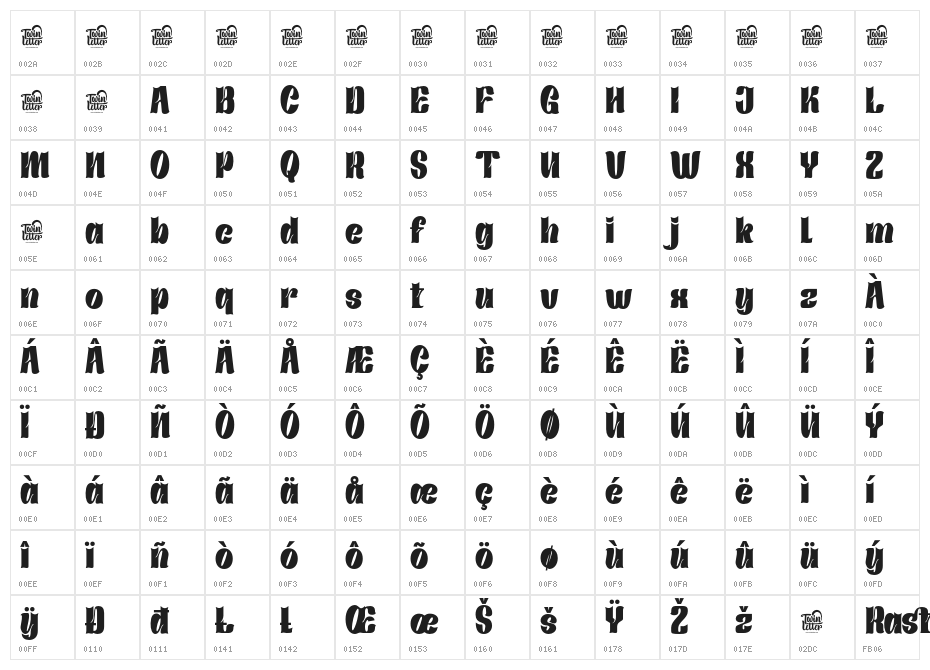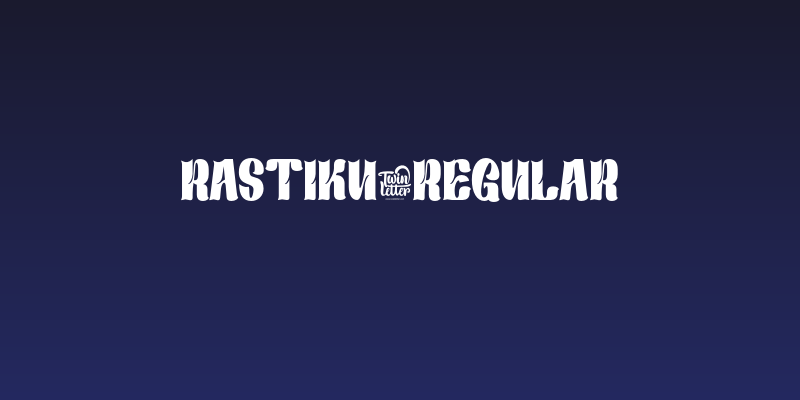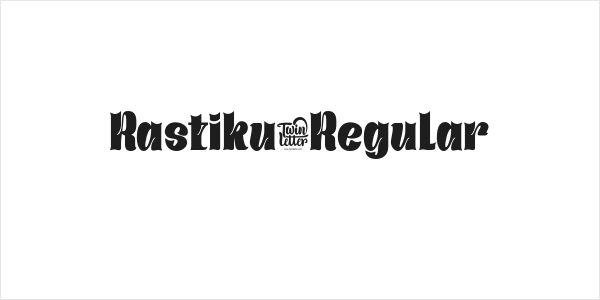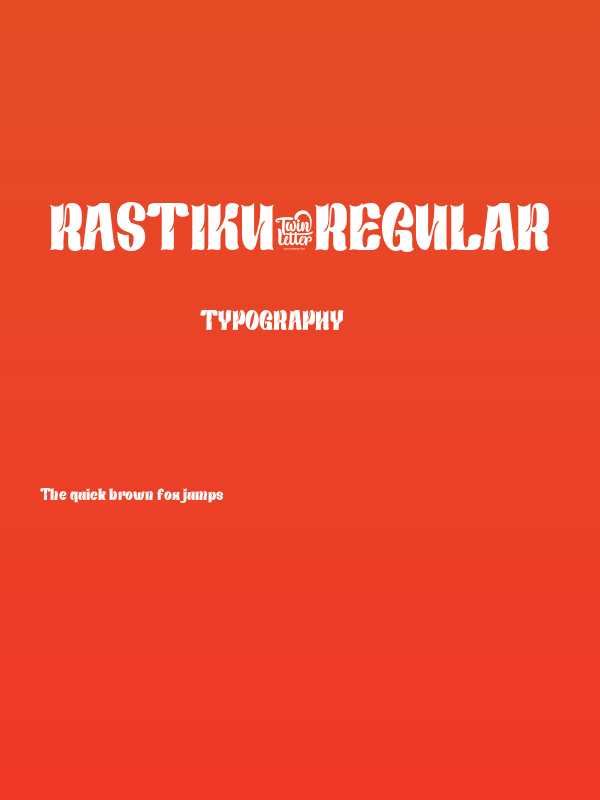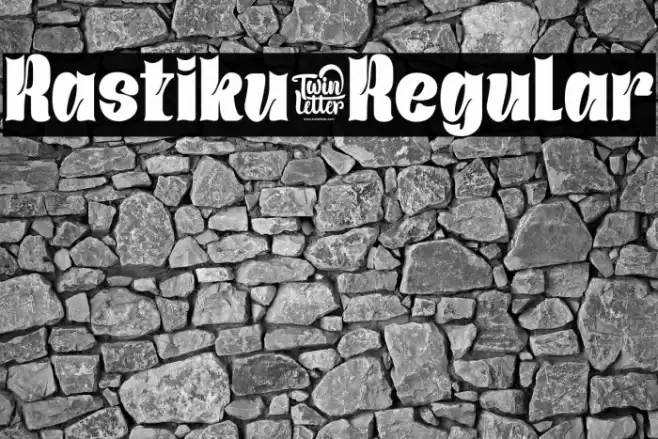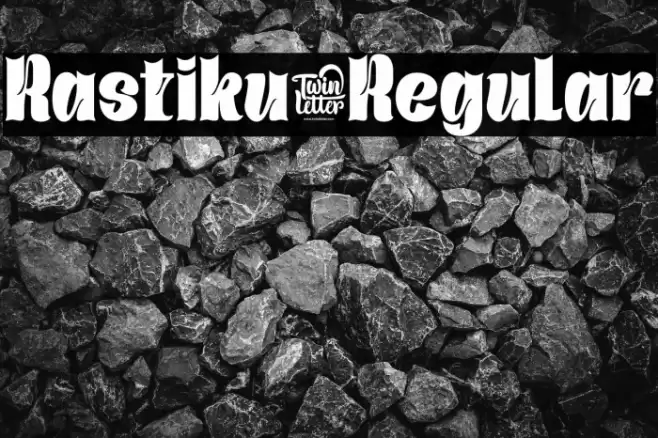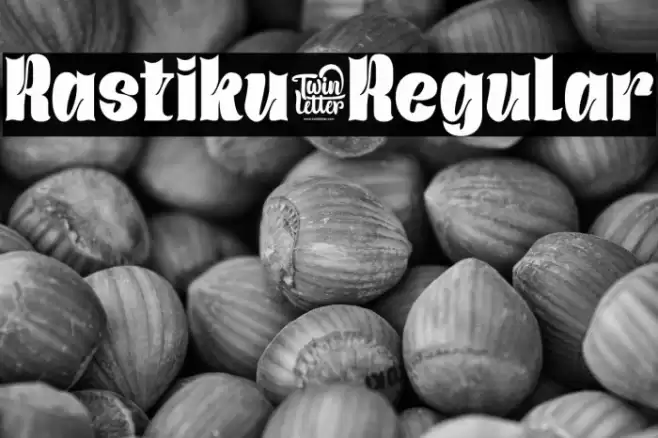
Rastiku-Regular Font
Rastiku-Regular Description
This font features a bold and expressive style with a strong presence. The characters are designed with thick strokes and a playful, almost whimsical flair. The uppercase letters are particularly striking, with unique curves and angles that give them a distinctive look. The lowercase letters maintain the same boldness, ensuring consistency across the typeface. The numbers and special characters are equally bold, making them stand out in any design. This font is perfect for projects that require a strong visual impact and a touch of creativity.
| Proposed Projects | Ideal for branding, poster design, headlines, and any project needing a bold statement. |